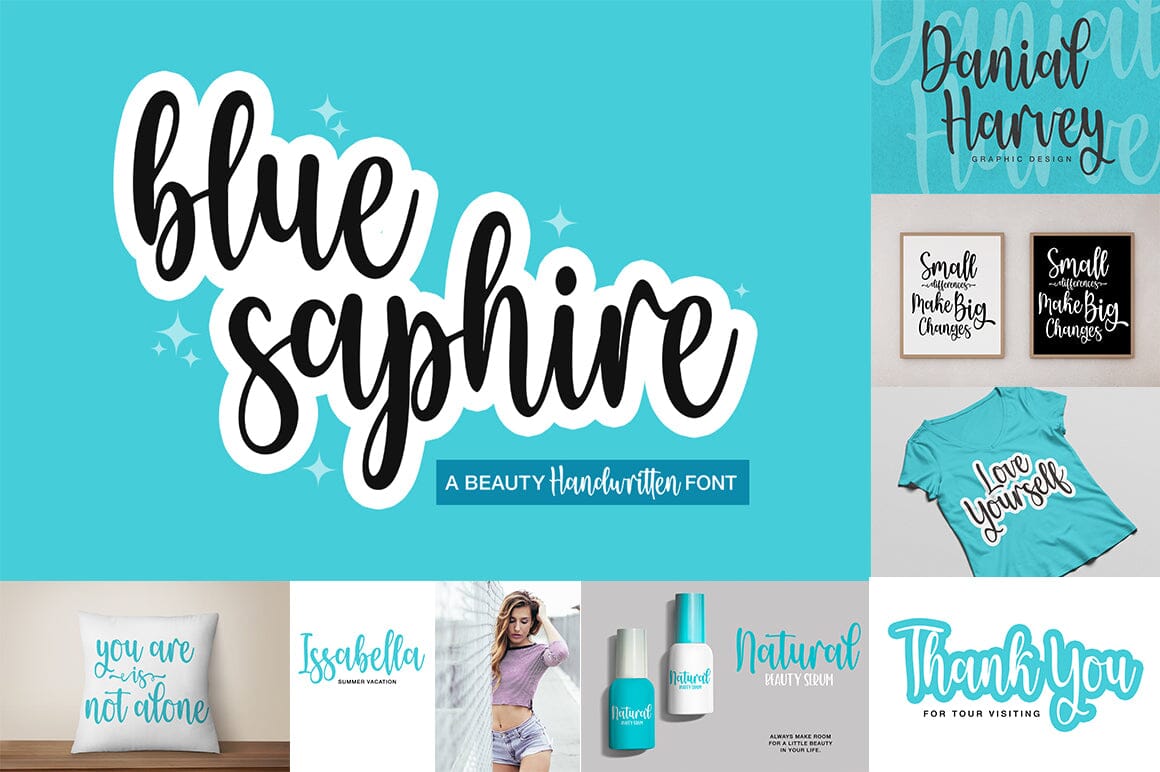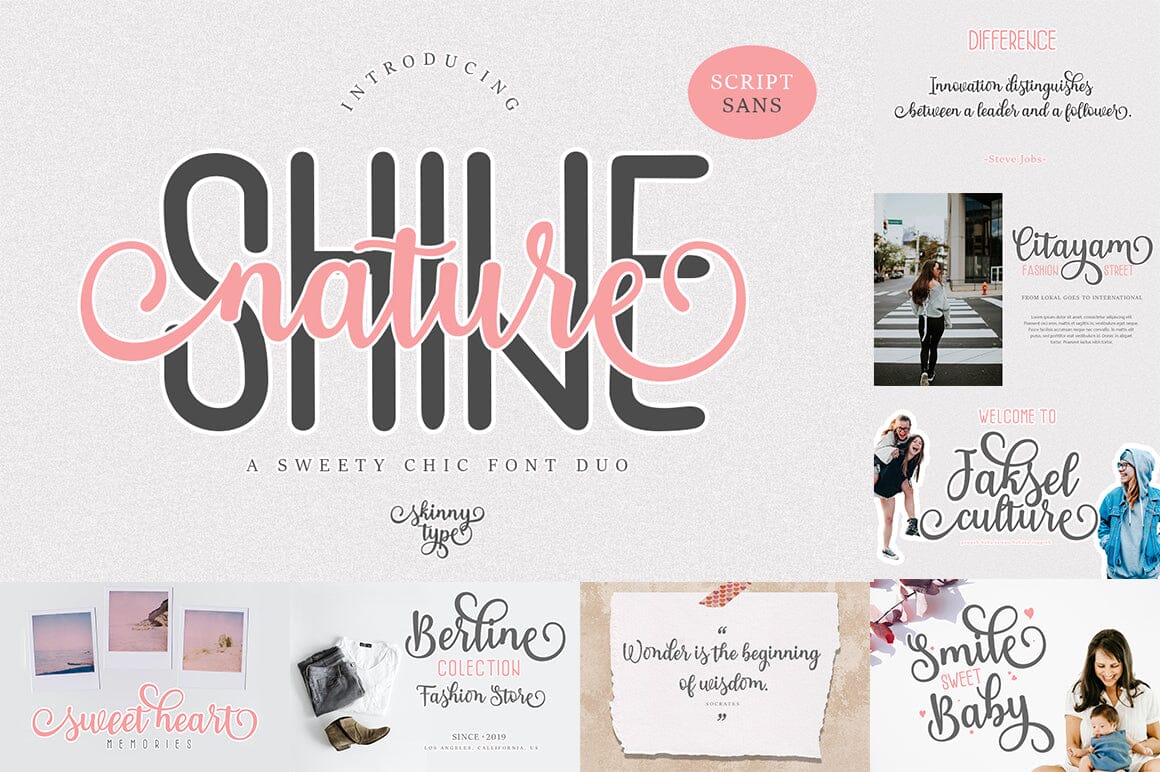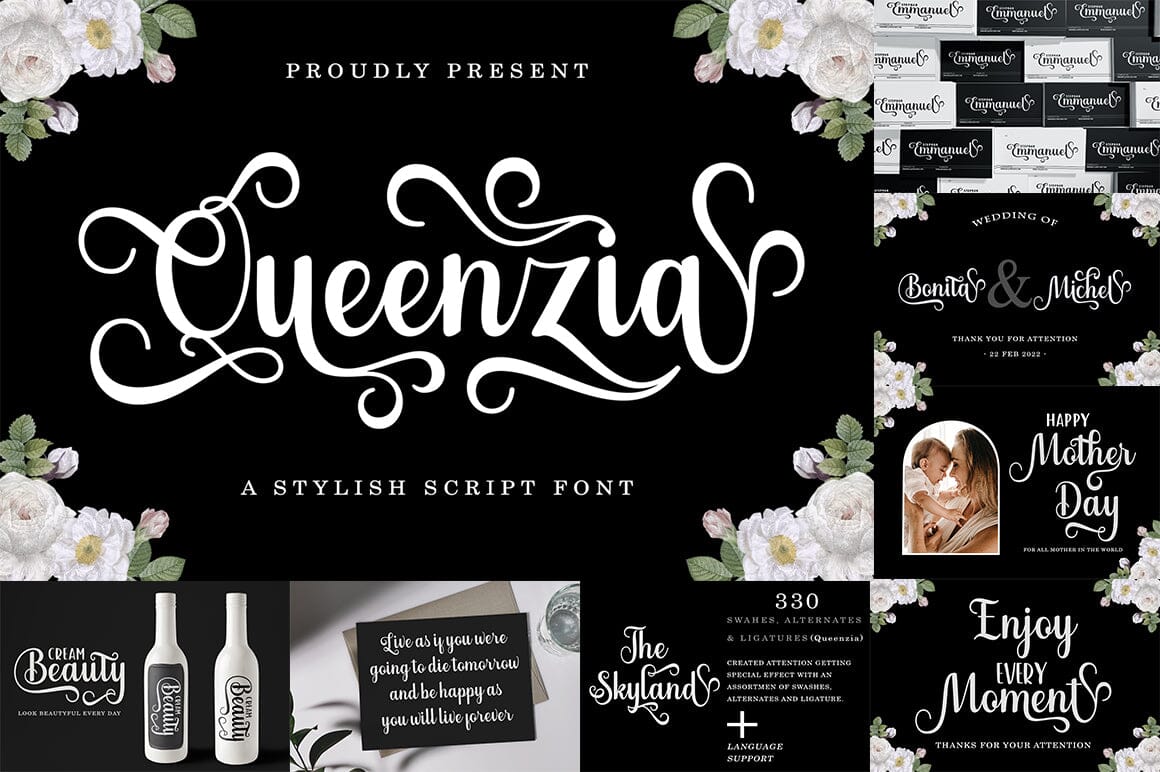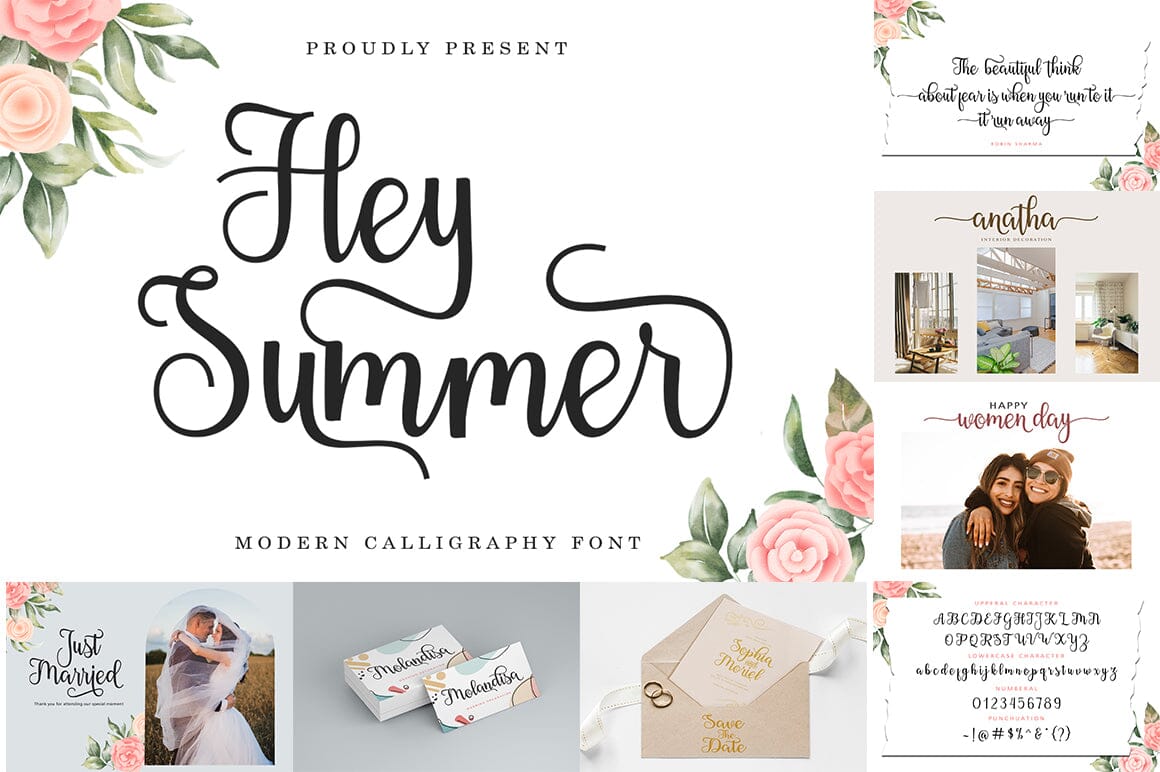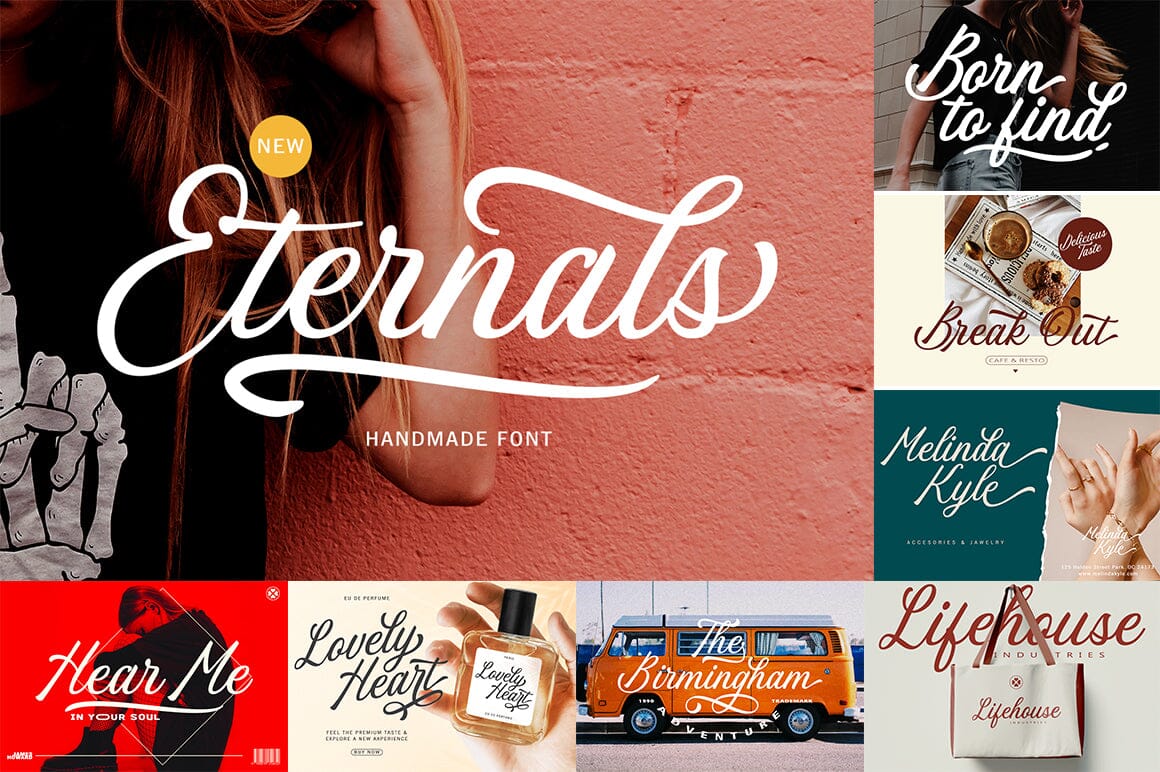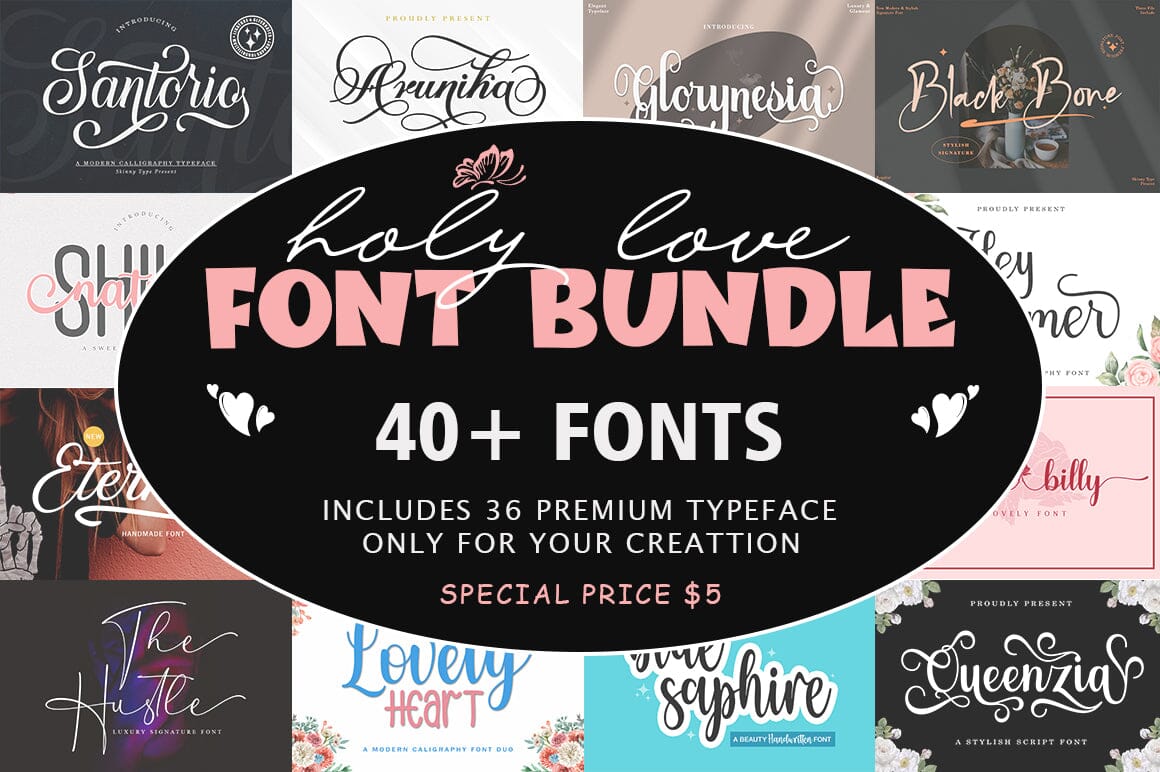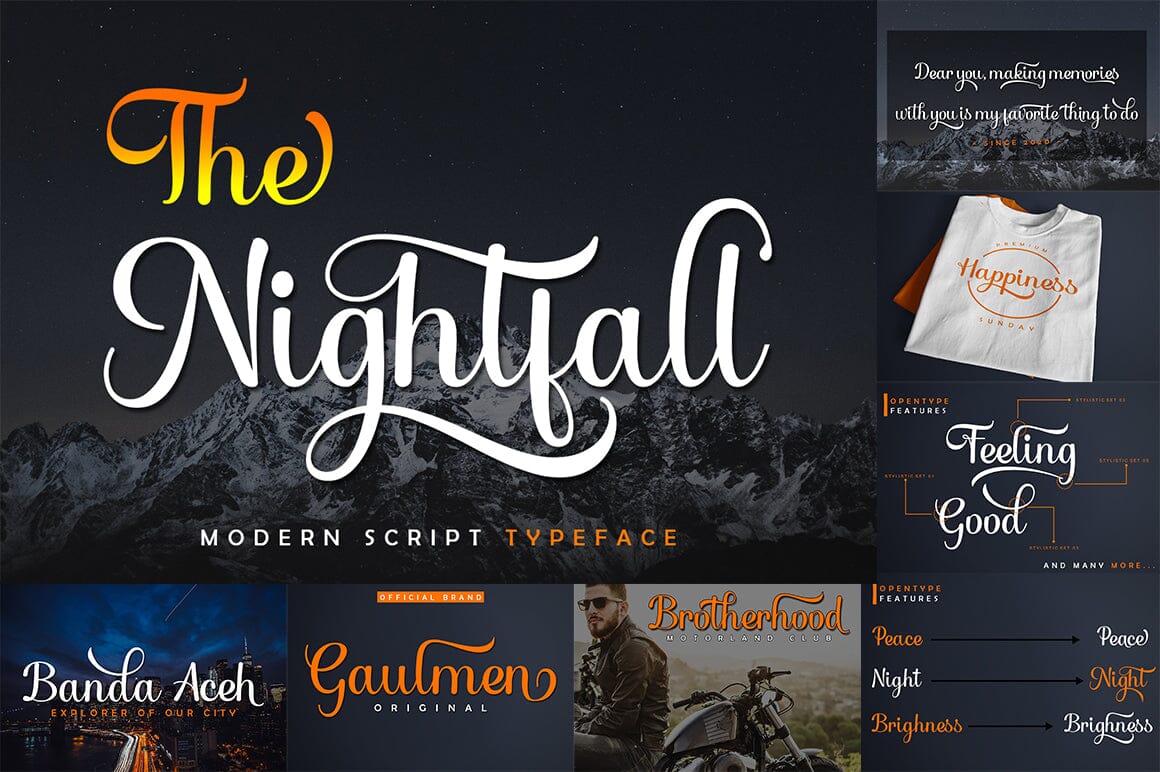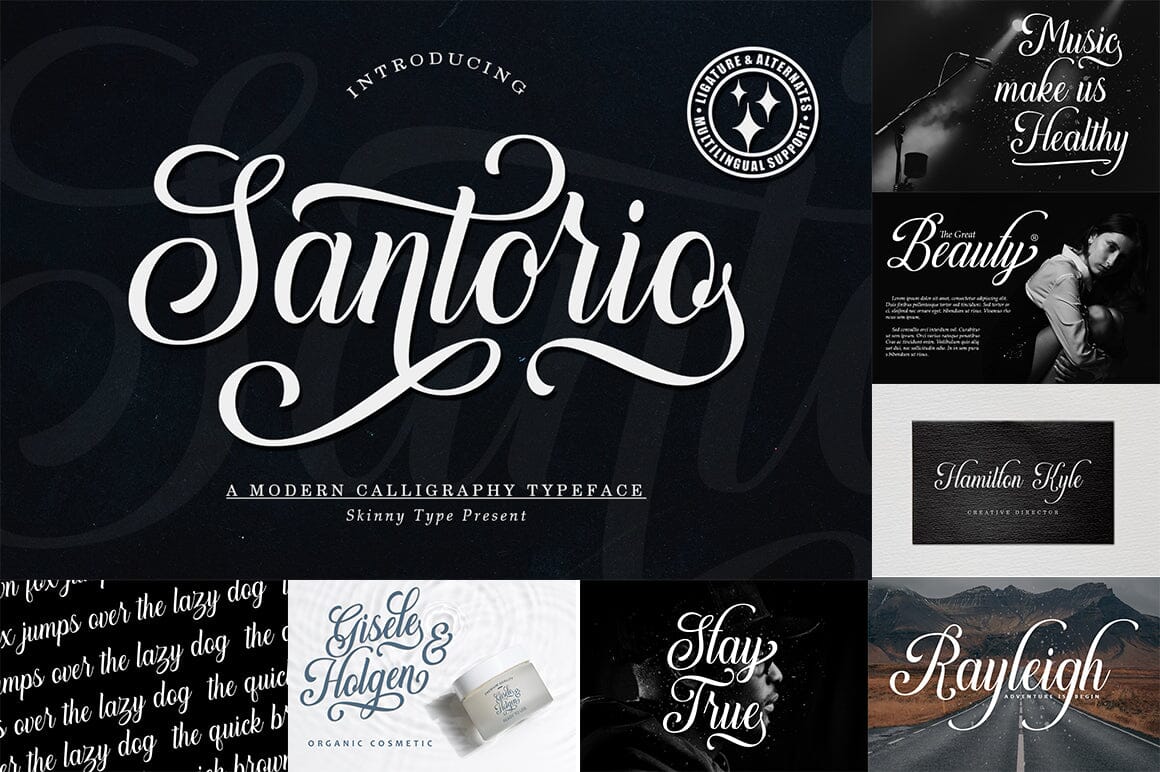
Holy Love Font Bundle
About Holy Love Font Bundle
Holy Love Font Bundle . This is your chance to get all my fonts for super cheap for $5! Includes 40+ Fonts in 36 Typography. This bundle includes a variety of font styles such as, calligraphy, signature, brush lettering, hand lettering, and more. with hundreds of glyphs, including alternative, ligature, sweep, and international language support. Also supported is PUA encoded. Access font characters compatible with Silhouette Studio, Cricut Design Space. Simply copy and paste alternative characters using Character Map (Windows), Nexus Font (Windows), Font Book (Mac) or a software program such as PopChar (for Windows and Mac). This pack is perfect for greeting cards, branding, business cards, quotes, posters, stickers, blogs, logos, weddings, signage, packaging, birth announcements, photo overlays, wall art, quotes, prints, bags, t-shirts, and much more! How to Access Alternate Characters: https://www.youtube.com/watch?v=Go9vacoYmBw https://www.youtube.com/watch?v=XzwjMkbB-wQ https://www.youtube.com/watch?v=x1A_ilsBsGs https://www.youtube.com/watch?v=xFlMwARHusY https://www.youtube.com/watch?v=NVJlZQ3EZU0 If you have any questions please message me. I’m here to help. Enjoy using!